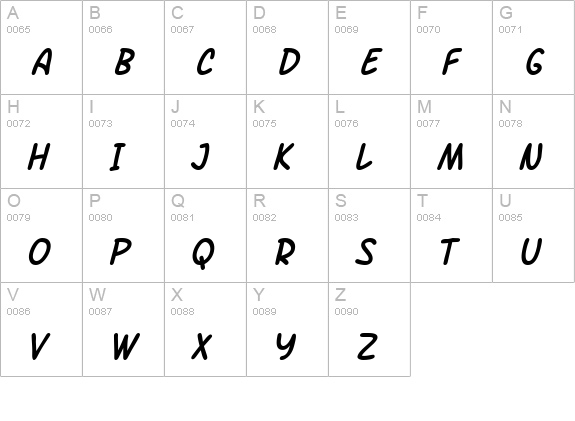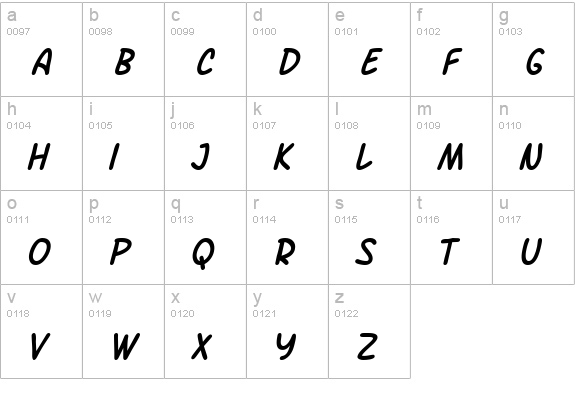
SF Arch Rival Italic Font Details
SF Arch Rival Italic is a distinctive, italic variant in the SF typeface family \xE2\x80\x94 well suited to design and typography projects.
SF Arch Rival Italic is a stunning font that exudes a sense of boldness and versatility. With its sleek and modern design, this typeface is perfect for adding a touch of sophistication to any project. The Italic style adds a unique and dynamic flair, making it ideal for eye-catching headlines, titles, and branding materials. What sets SF Arch Rival Italic apart is not only its exceptional aesthetics but also its accessibility. This font is freely available to download at FontsMarket.com, allowing designers and creatives to effortlessly incorporate it into their work. Whether you're designing a website, creating a logo, or crafting a poster, SF Arch Rival Italic will elevate your design to new heights. The clean lines and seamless curves of SF Arch Rival Italic make it highly readable and legible, ensuring that your message is effectively communicated to your audience. Its versatility allows it to be paired with a wide range of fonts, creating endless possibilities for creative combinations. SF Arch Rival Italic is a true gem in the world of typography, offering both style and ease of use. Download this font from FontsMarket.com today and unleash your creativity with this captivating and freely available typeface.